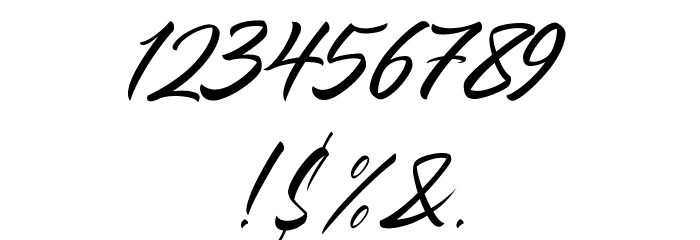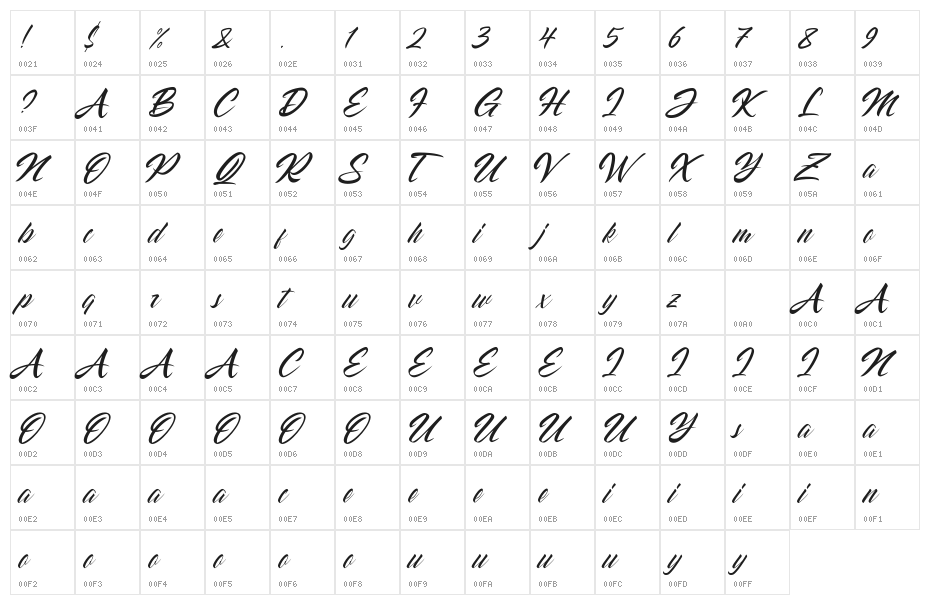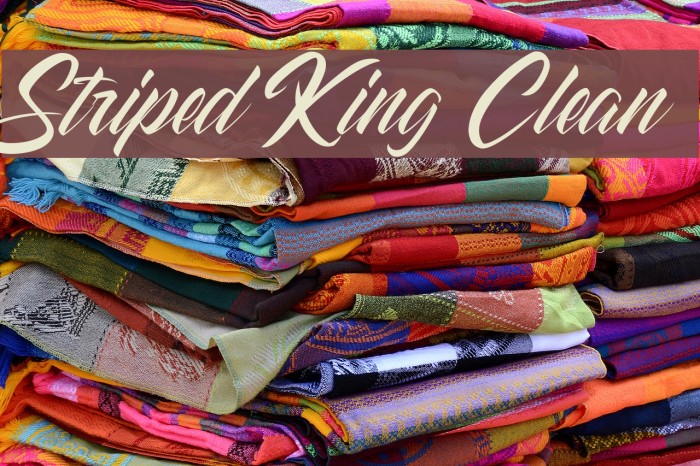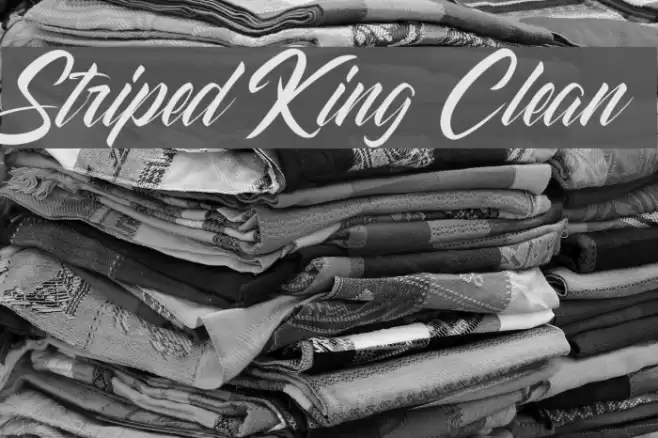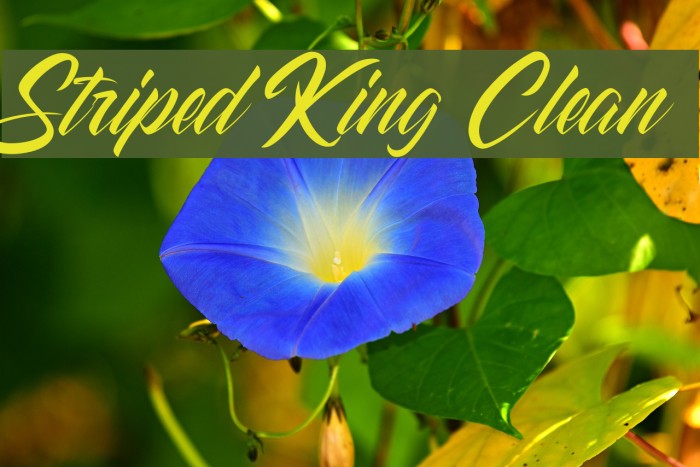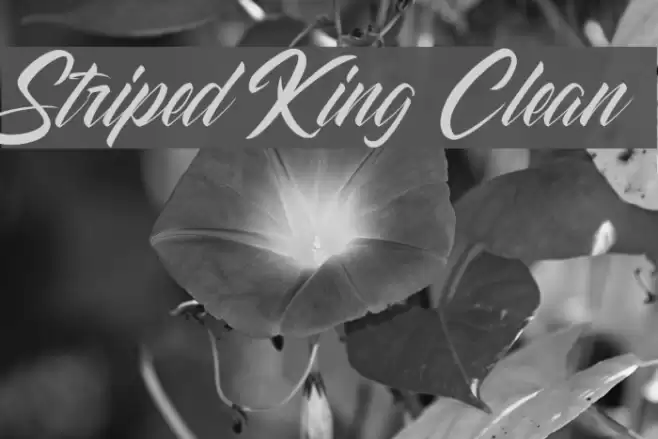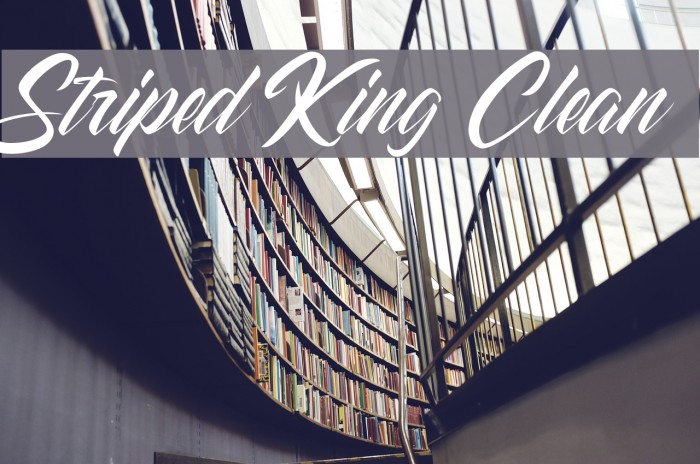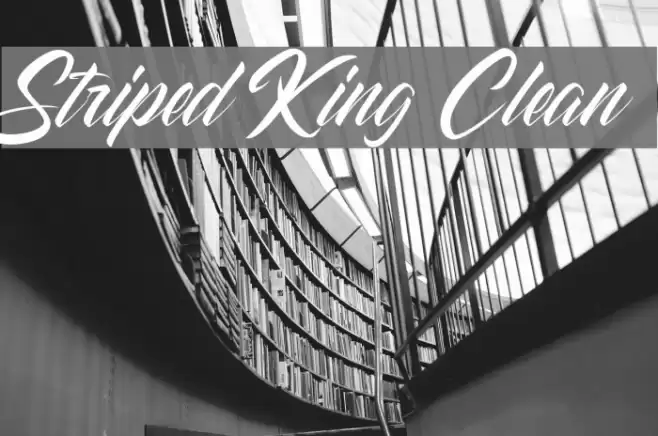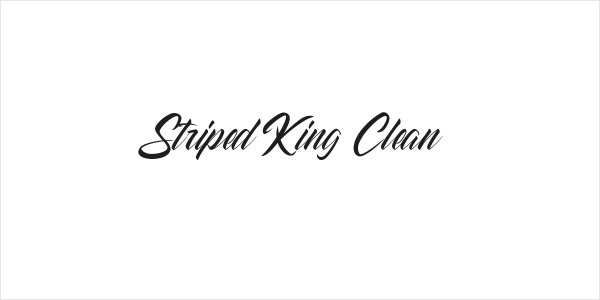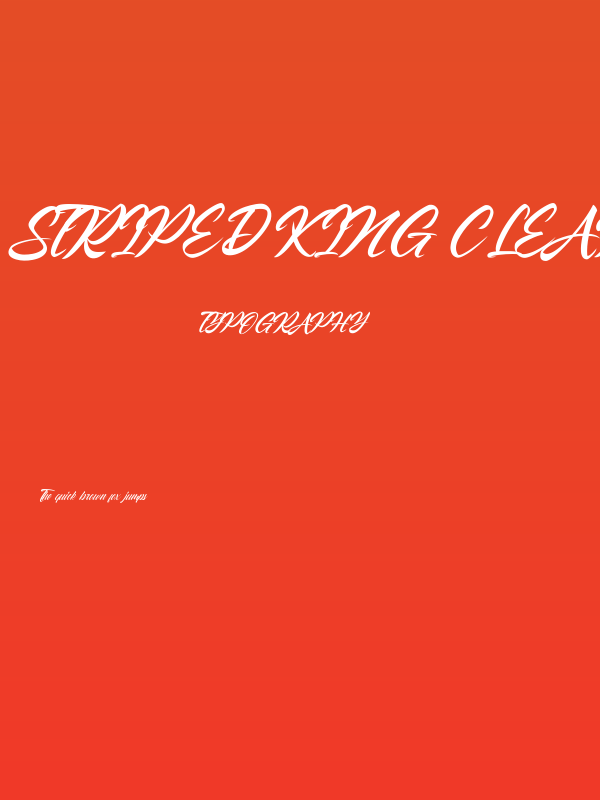
Striped King Clean Font
Striped King Clean Description
This font features a dynamic and elegant script style, characterized by its flowing, cursive letterforms. The strokes are smooth and connected, giving it a handwritten appearance. The uppercase letters are bold and prominent, while the lowercase letters maintain a consistent fluidity. The numbers and special characters are designed to match the overall aesthetic, ensuring a cohesive look across all elements. The font's design is both sophisticated and versatile, suitable for a variety of creative applications.